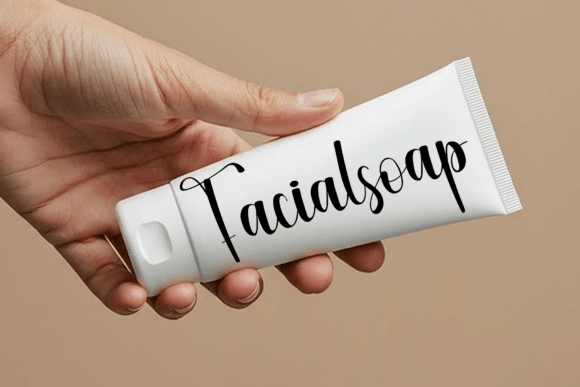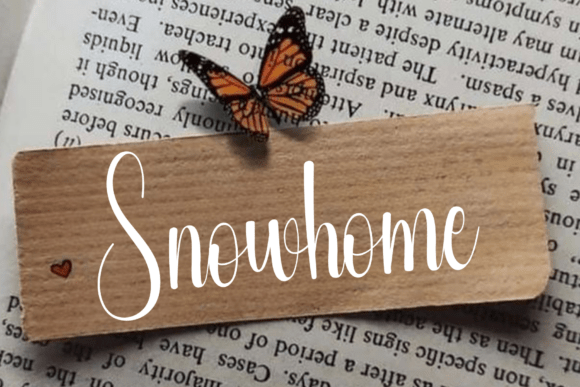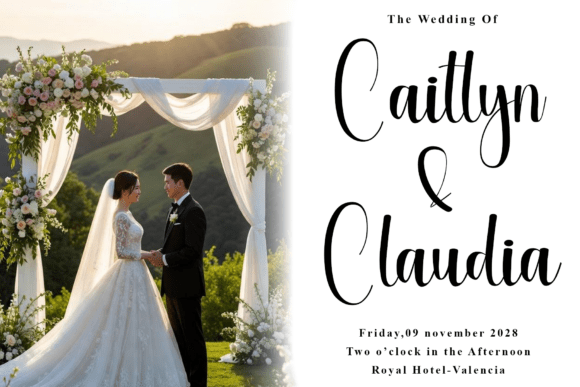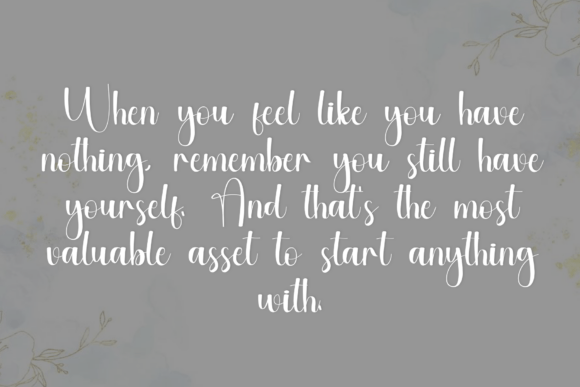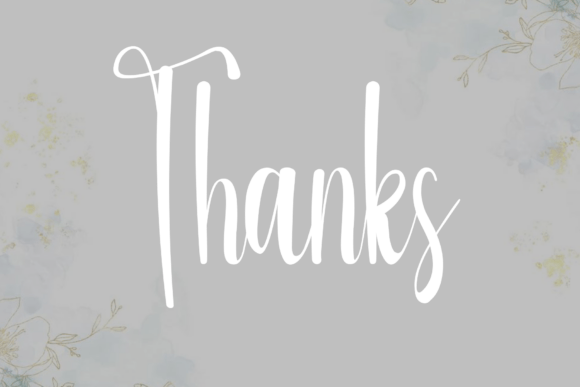
Bastline Font: Elevate Your Design with a Touch of Elegance
In the world of typography, fonts play a crucial role in conveying the tone and personality of a brand or design. For designers and crafters looking for a unique and professional touch, the Bastline font is an excellent choice. This modern handwritten font is designed to evoke a sense of clarity and crisp elegance, making it perfect for a variety of applications.
The Characteristics of Bastline Font
Bastline font is characterized by its tall, thin strokes with a subtle, airy slant. This distinctive feature gives it a refined aesthetic that feels as fresh as a mountain breeze. The clean and approachable style of Bastline font makes it an ideal choice for travel photography, branding for outdoor gear, and sophisticated web design.
What Makes Bastline Font Stand Out
So, what sets Bastline font apart from other fonts in the modern handwritten collection? Here are a few key factors:
- Unique and Professional: Bastline font offers a unique and professional look that is sure to elevate your design.
- Elegant and Refined: The tall, thin strokes and subtle slant give Bastline font an elegant and refined aesthetic.
- Clean and Approachable: The clean and approachable style of Bastline font makes it perfect for a variety of applications, from travel photography to web design.
Use Cases for Bastline Font
Bastline font is a versatile font that can be used in a variety of contexts. Here are a few examples:
- Travel Photography: The clean and elegant style of Bastline font makes it perfect for travel photography, adding a touch of sophistication to your images.
- Branding for Outdoor Gear: For outdoor gear brands, Bastline font offers a fresh and adventurous look that is sure to appeal to customers.
- Sophisticated Web Design: Bastline font is also ideal for web design, adding a touch of elegance and refinement to your website.
Tips for Using Bastline Font
To get the most out of Bastline font, here are a few tips:
- Pair it with Other Fonts: Experiment with pairing Bastline font with other fonts to create a unique and visually appealing combination.
- Use it for Headings and Titles: Bastline font is perfect for headings and titles, adding a touch of elegance and sophistication to your design.
- Experiment with Colors and Textures: Don’t be afraid to experiment with different colors and textures to add depth and interest to your design.
In conclusion, Bastline font is a unique and professional addition to the modern handwritten collection. Its elegant and refined aesthetic makes it perfect for a variety of applications, from travel photography to web design. With its clean and approachable style, Bastline font is sure to elevate your design and add a touch of sophistication to your brand or project.
Get Creative with Bastline Font
Whether you’re a designer, crafter, or simply someone looking for a unique and professional font, Bastline font is an excellent choice. So why not get creative and see how you can use Bastline font to elevate your design?